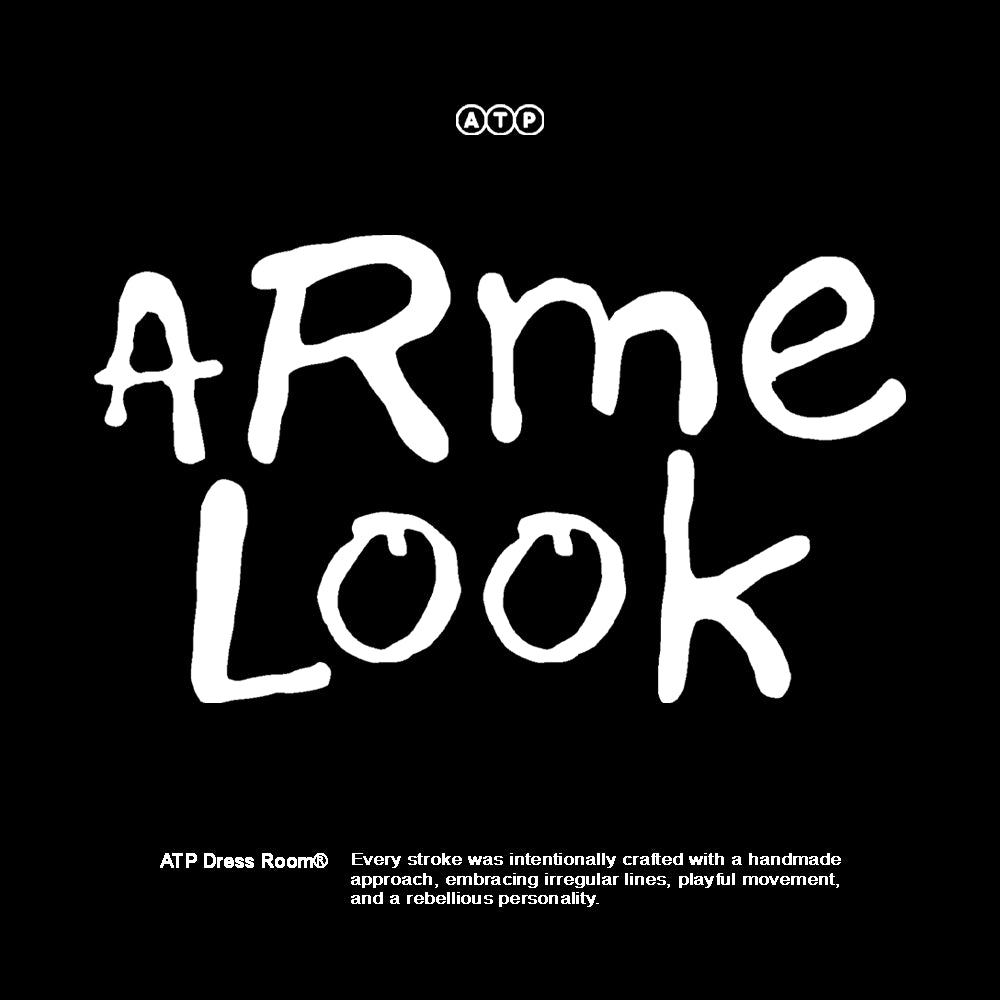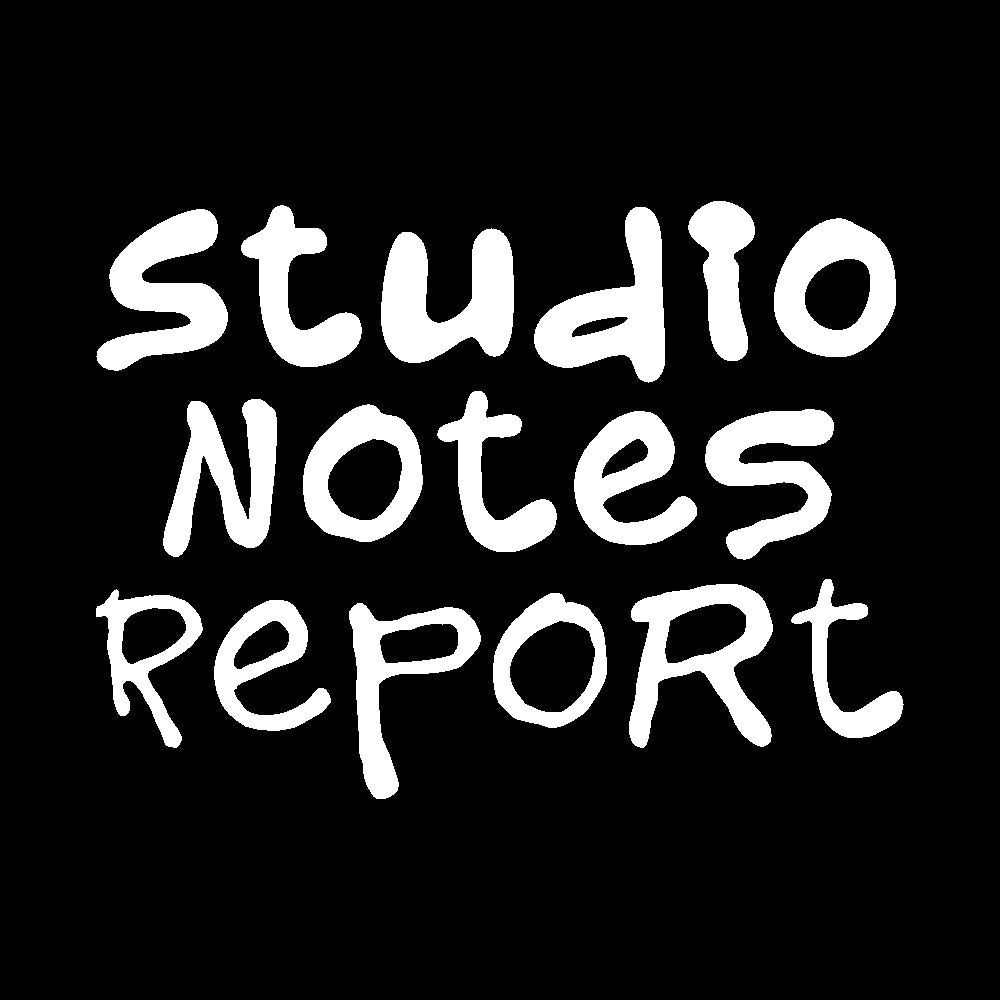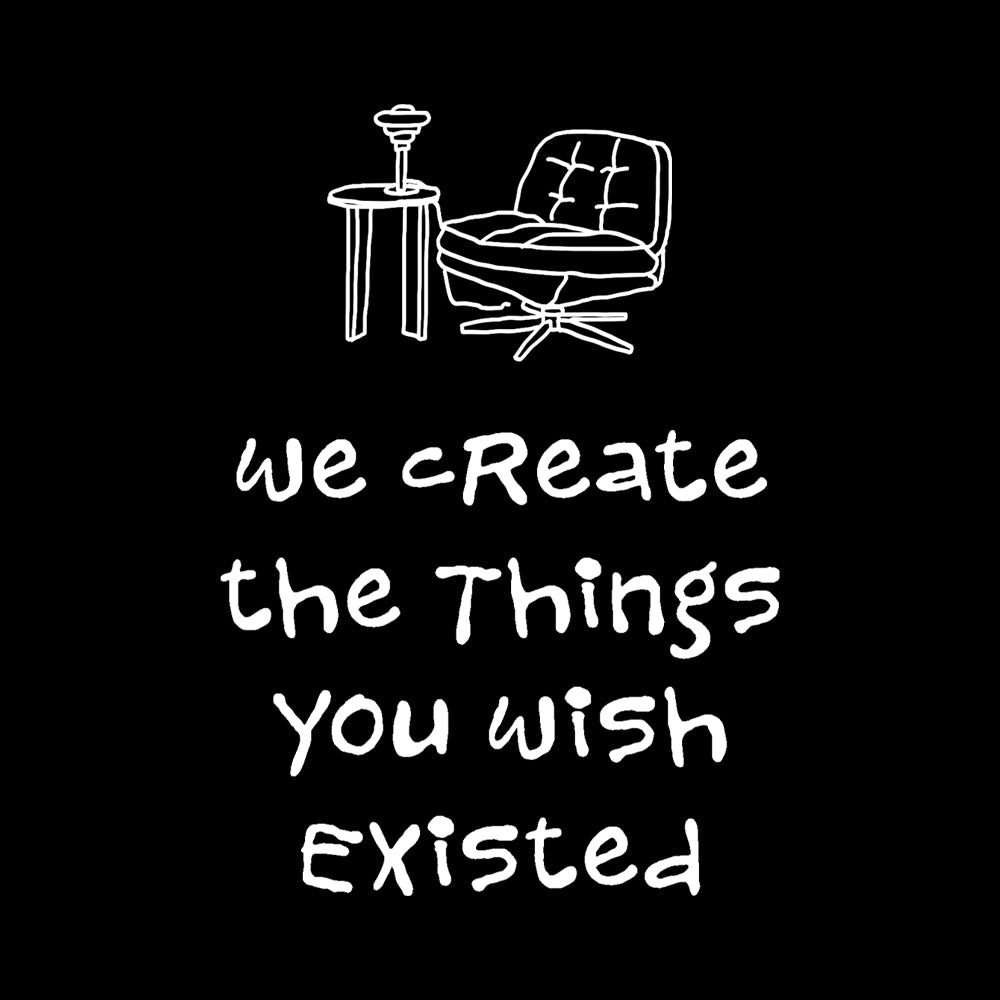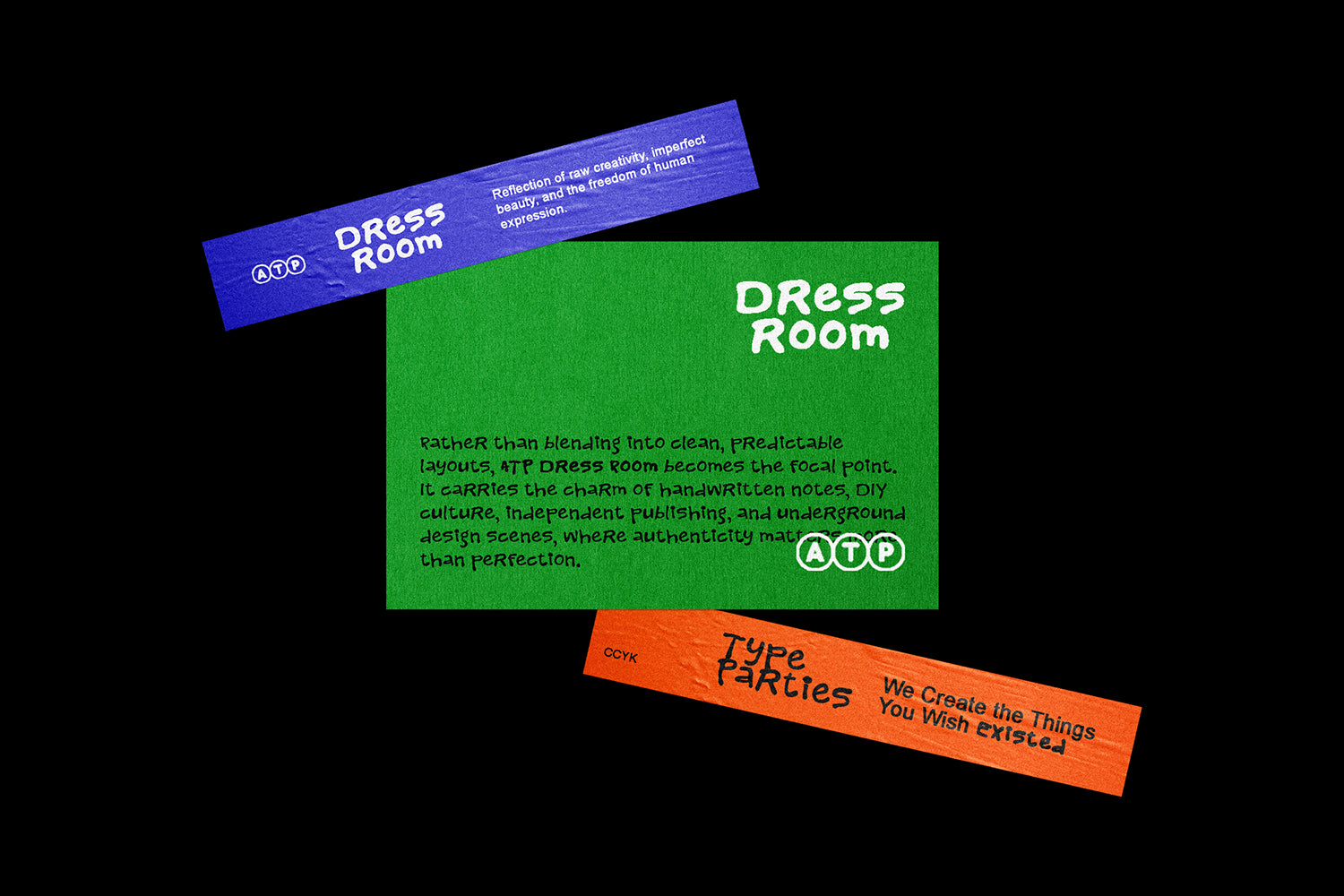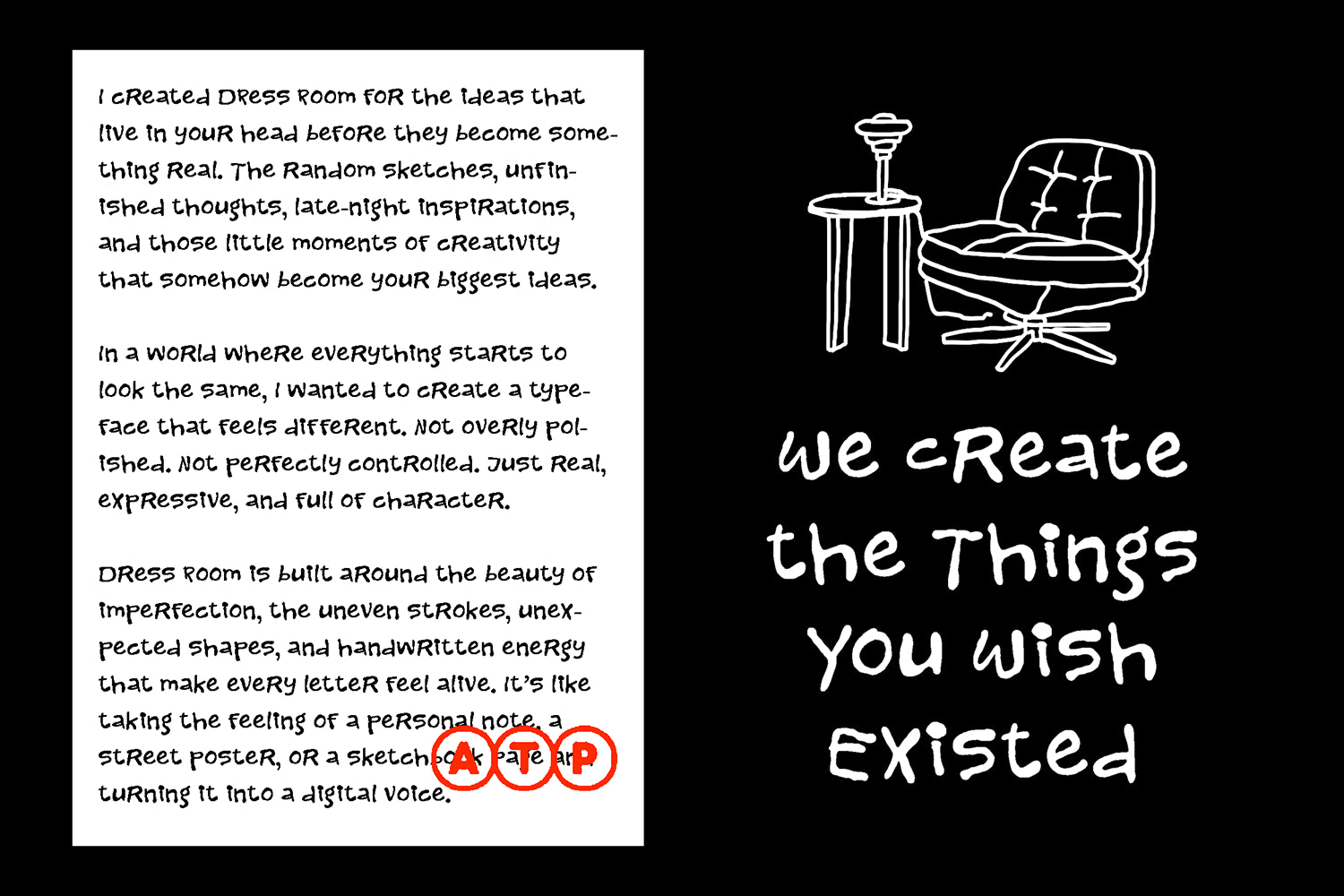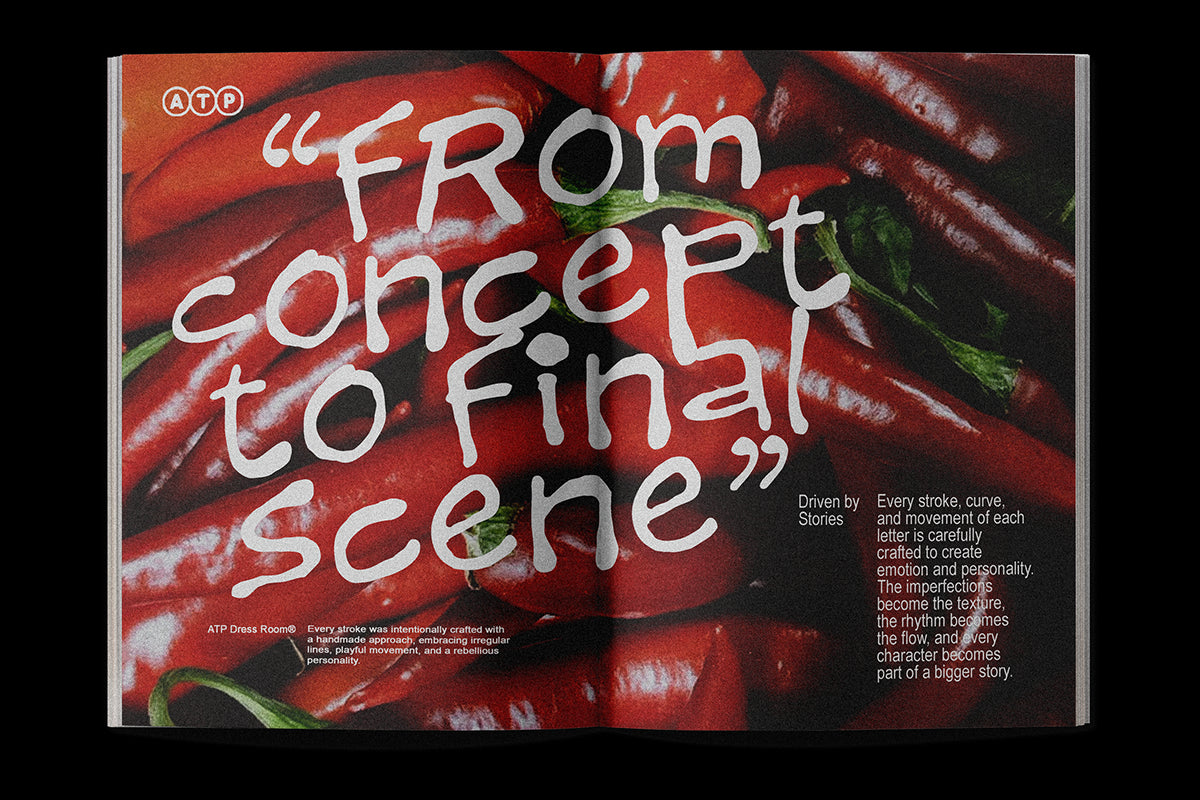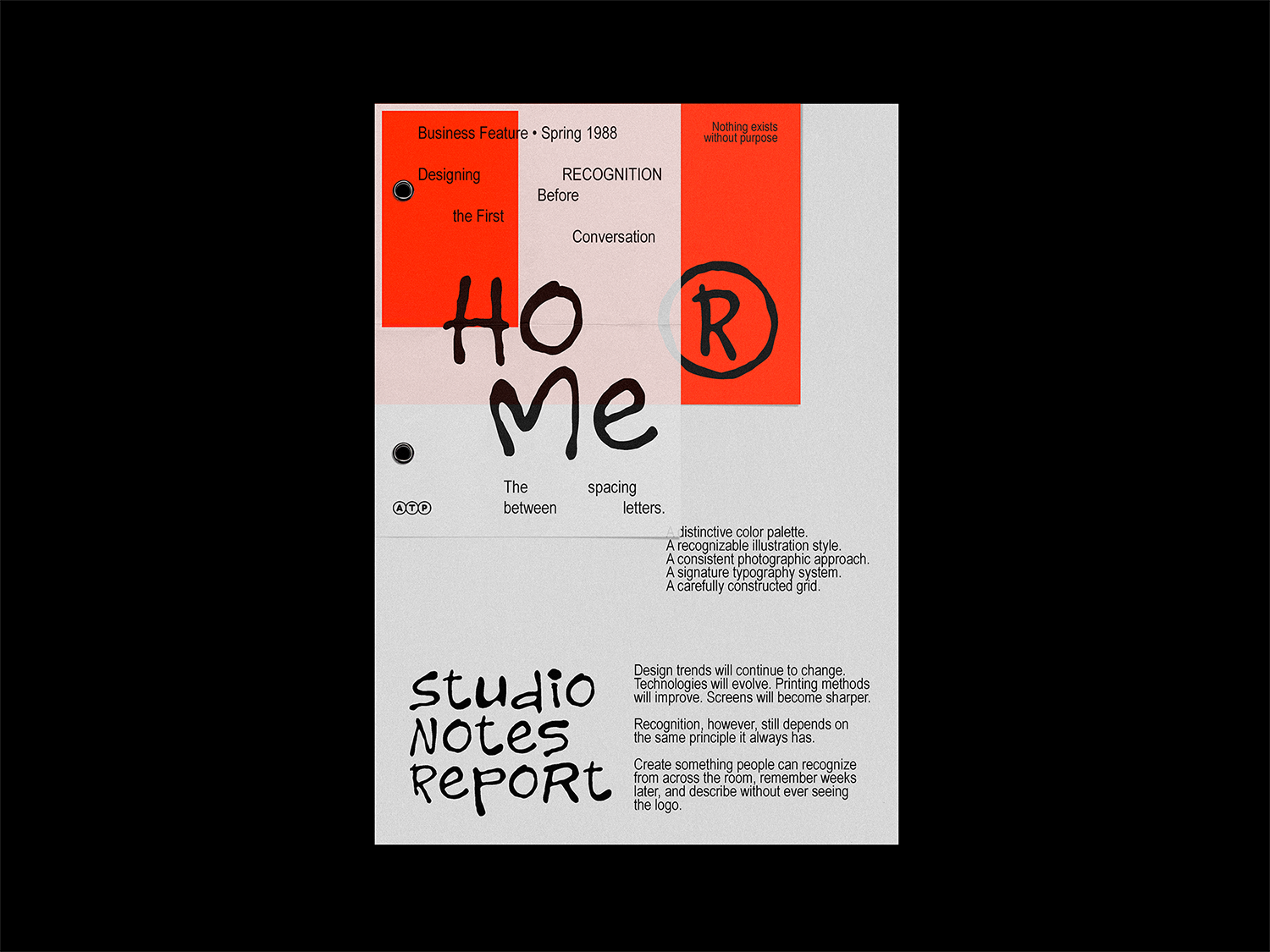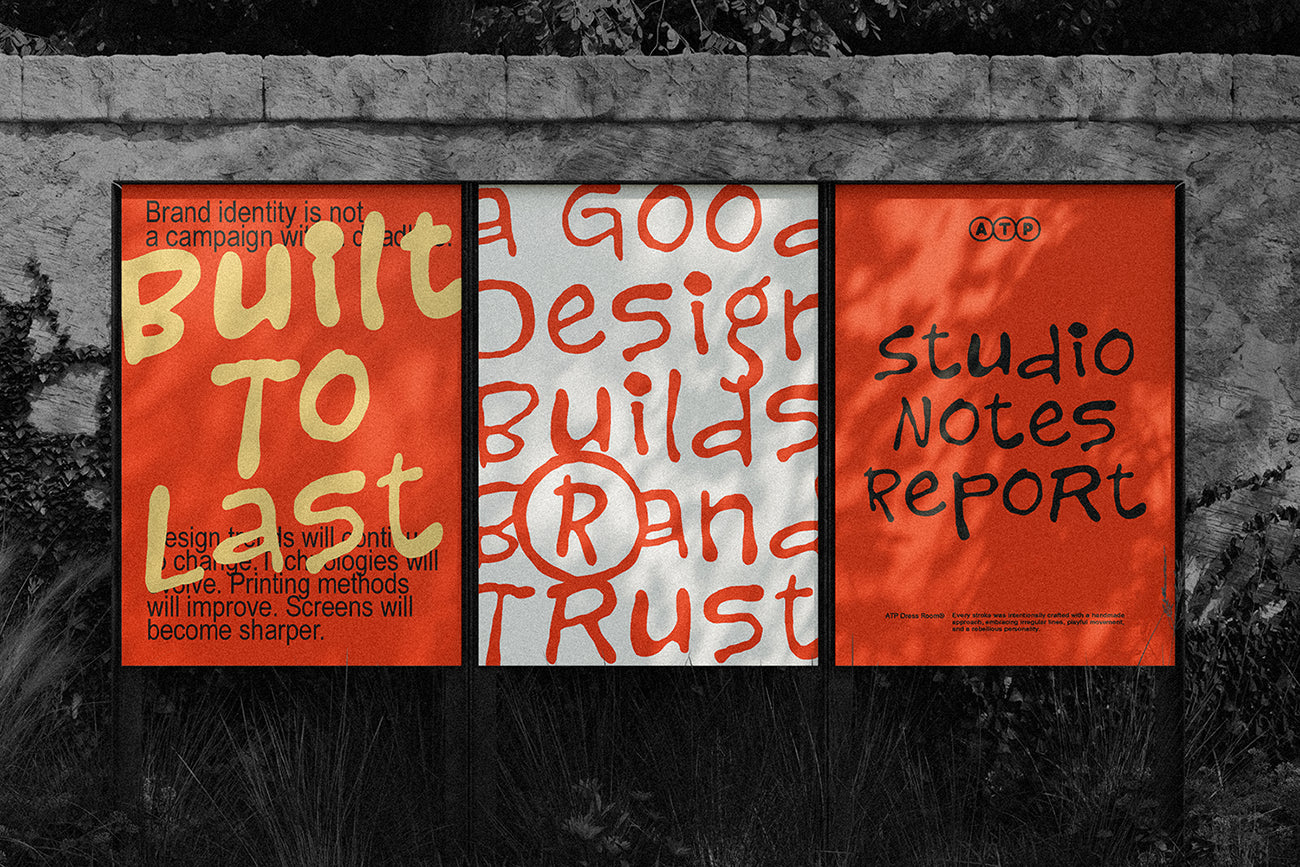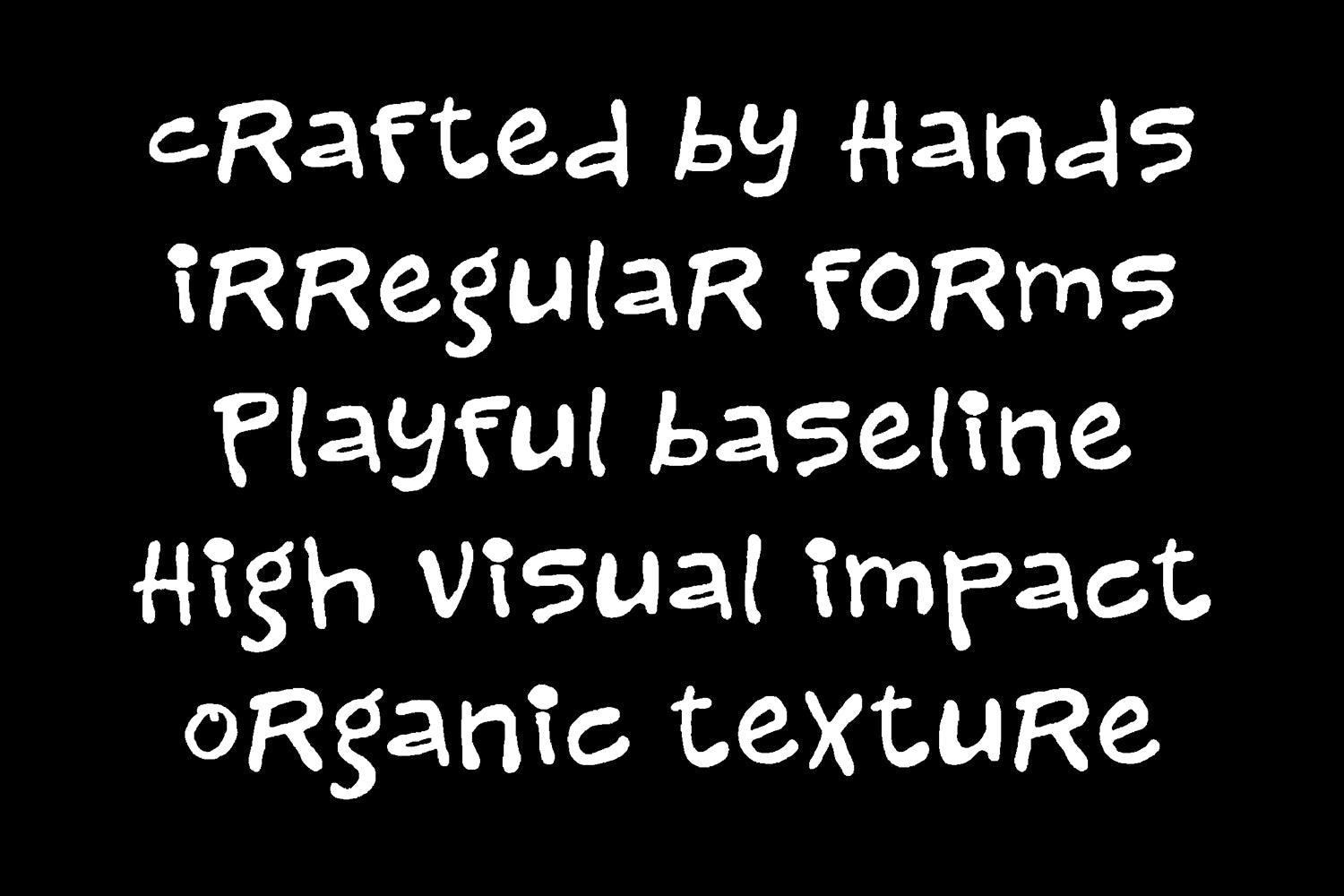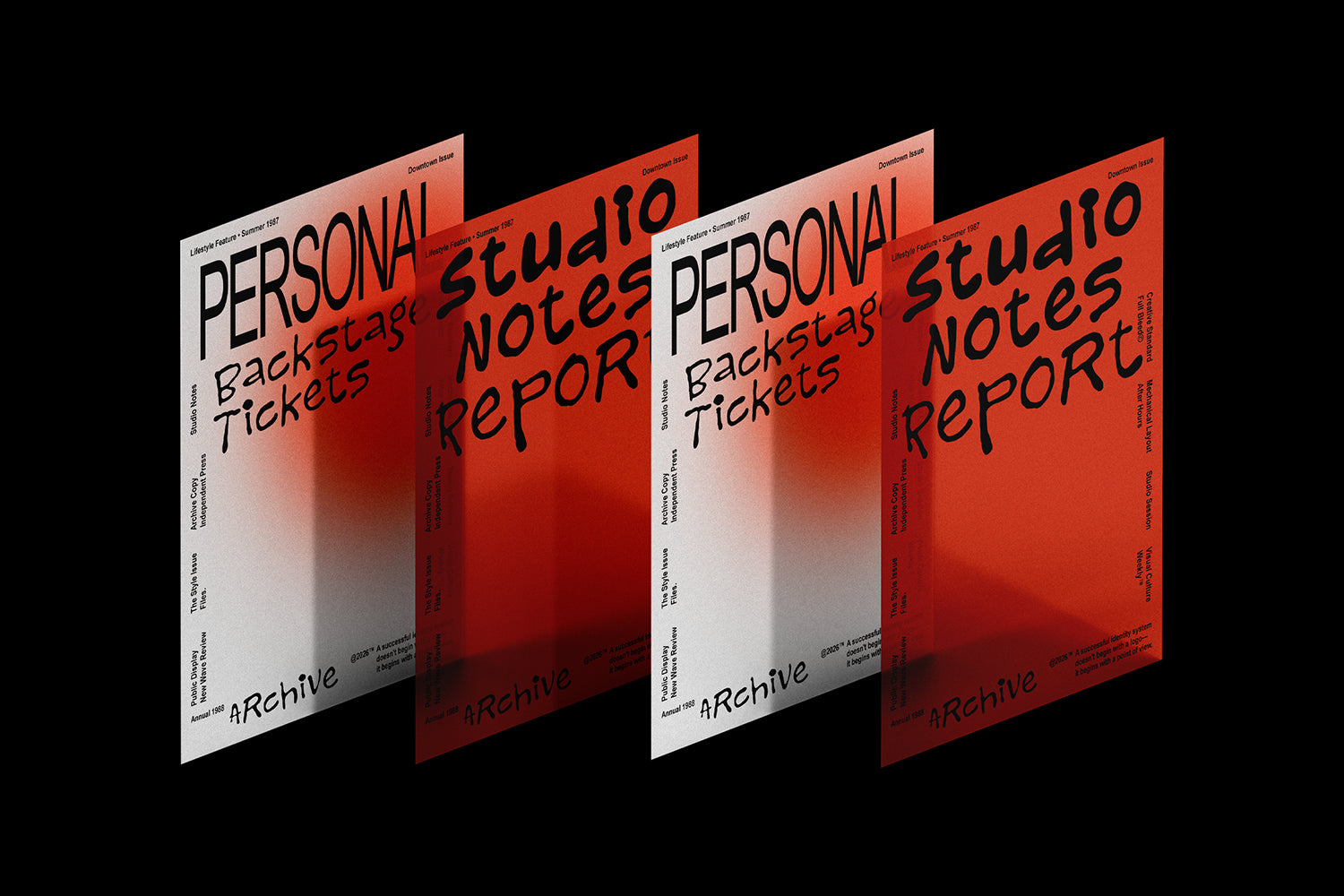
Dress Room - Handwritten Font
A handcrafted display typeface built around the beauty of imperfection. Inspired by spontaneous marker lettering, backstage notes, sketchbook doodles, and the expressive energy of handmade typography, this font captures the feeling of creating without hesitation. Every character carries subtle inconsistencies in width, curve, and stroke, giving the typeface a genuine human touch that digital perfection can never replicate.
Instead of relying on rigid geometry, ATP Dress Room embraces an intuitive construction. The uneven baselines, playful proportions, and fluid letterforms create a relaxed rhythm that feels natural and alive. Each glyph has its own personality while remaining visually balanced, allowing words to feel expressive without sacrificing readability.
The font sits somewhere between art and communication. It feels youthful without becoming childish, bold without becoming aggressive, and casual while maintaining enough presence for editorial layouts. Its organic structure makes it ideal for designers looking to add warmth, authenticity, and movement to otherwise clean compositions.
Dress Room - Handwritten Font is a handcrafted display typeface characterized by subtle inconsistencies in width, curve, and stroke, reflecting the essence of spontaneous marker lettering and handmade typography. It includes uppercase and lowercase letters, numerics, punctuation, and multilingual support, available in formats such as .otf, .ttf, .woff, and .woff2.